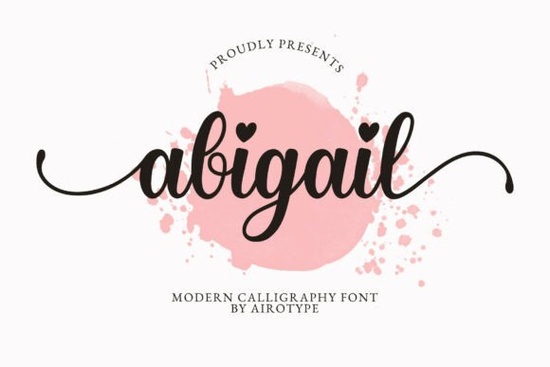
If you're looking for a clean, modern script font that feels personal and handmade without being overly ornate Abigail Font fits quietly into many design workflows. It’s not flashy or fussy, but it carries a gentle elegance that works especially well for projects where warmth and approachability matter: think wedding stationery, small-batch greeting cards, farmhouse-style wall art, or even sublimation mugs for boutique gift shops. Its lowercase letters include subtle front and back tail swashes, adding just enough movement to suggest handwriting without sacrificing readability.
When does Abigail Font work best?
This font shines in contexts where you want softness and intention not perfection. Because it avoids heavy contrast or dramatic flourishes, it pairs easily with minimalist layouts, neutral color palettes, and natural textures like kraft paper or linen. Designers who’ve used it report success with:
- Wedding invitations and day-of signage (especially for rustic, garden, or modern-elegant themes)
- Print-on-demand t-shirt designs targeting moms, teachers, or wellness audiences
- Digital stickers and printable planners where legibility at small sizes matters
- Farmhouse kitchen prints, recipe cards, and seasonal decor bundles
- Birthday party kits particularly for girls’ birthdays aged 5–12, where charm matters more than formality
It’s also a practical choice for crafters using Cricut or Silhouette machines: the clean outlines cut smoothly, and the swashes stay legible even when scaled down to 18–24 pt for labels or tags.
How does Abigail compare to other popular script fonts?
Unlike highly decorative calligraphy fonts that demand attention, Abigail sits comfortably between formal and friendly. It’s less structured than Andalusia Calligraphy Font, which leans into traditional penmanship with stronger contrast and tighter spacing. Compared to Preppy Berry Font, Abigail feels more relaxed less “school newsletter,” more “handwritten note tucked into a gift box.”
For designers building cohesive font pairings, Abigail pairs well with light sans-serifs (like Montserrat Light or Quicksand) or gentle serifs (such as Playfair Display Italic). Its lowercase swashes give rhythm without overwhelming, making it easier to mix with bolder display fonts than something like Sundary Beach Duo Font, which includes both script and serif versions in one family.
The character set covers Western European languages, including accented characters for Spanish, French, and German useful if you’re designing bilingual baby announcements or café menus. Punctuation is thoughtfully designed: quotes, dashes, and ampersands all echo the same light, flowing rhythm.
Who uses Abigail Font and why do they keep coming back?
Small business owners selling printable wedding kits on Etsy often choose Abigail because customers recognize its tone: sincere, unhurried, and quietly refined. Print-on-demand sellers appreciate how well it scales across product mockups from tiny sticker sheets to large tote bag prints without pixelation or awkward spacing gaps.
Teachers and homeschool parents use it for classroom labels and reward certificates; the lowercase swashes add visual interest without distracting young readers. One crafter told us she uses Abigail exclusively for her seasonal farmhouse decor line it reads “handmade” at a glance, even when printed digitally.
It’s also a favorite among designers who avoid overused script fonts like Pacifico or Great Vibes. If you’ve been searching for something fresh but still familiar, Abigail offers that balance without requiring steep learning curves or complex layering.
A few things to keep in mind before downloading
- Abigail doesn’t include uppercase swashes its strength lies in lowercase flow, so all-caps headlines won’t showcase its best features.
- It’s not intended for long paragraphs of body text. Stick to short phrases, headings, or accent words.
- For multilingual projects beyond Western Europe, check the glyph list first some diacritics may be limited.